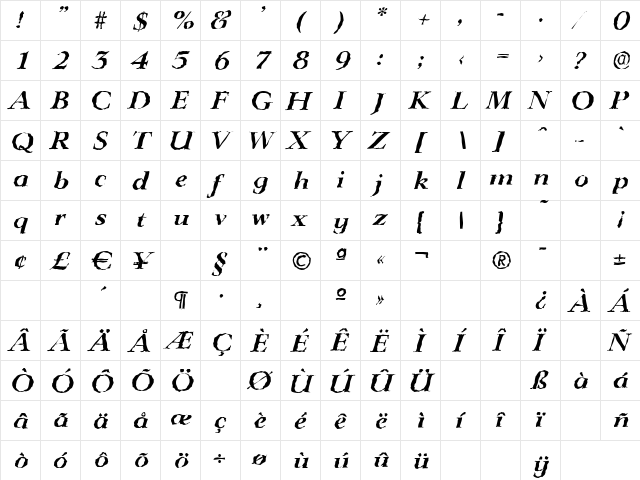
LingwoodRandom BoldItalic
Design Context for LingwoodRandom Typeface
LingwoodRandom echoes the hand-painted signage and woodblock typography of the American frontier, with a warm, rugged personality. The dynamic lean of this cut emphasises speed and emphasis in any layout. Its bold stroke weight gives it real presence on the page.
Perfect for barbecue restaurants, country music branding, vintage poster design, and rustic packaging.
Font Pairing: Combine LingwoodRandom with a simple slab or neutral sans — period-accurate companions reinforce the vintage feel without competing for attention.
Pro Tip: Pair LingwoodRandom with aged textures or distressed backgrounds to amplify its vintage personality.